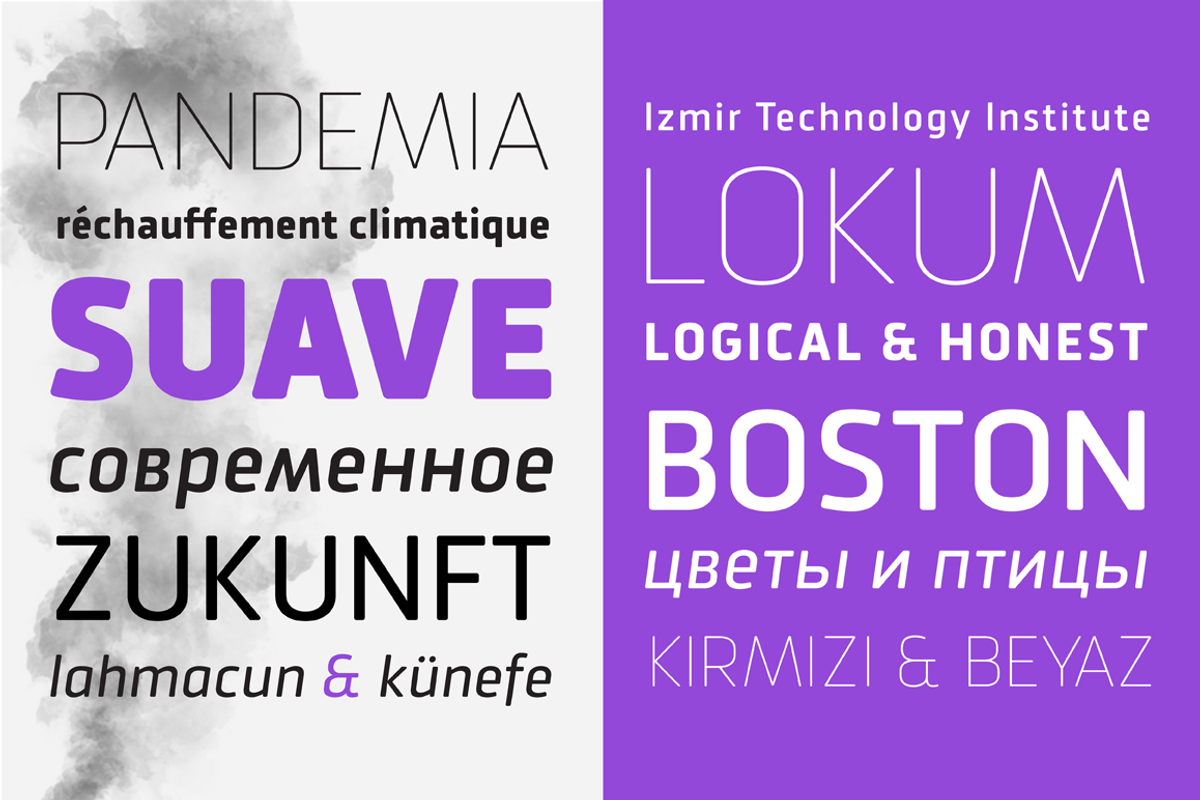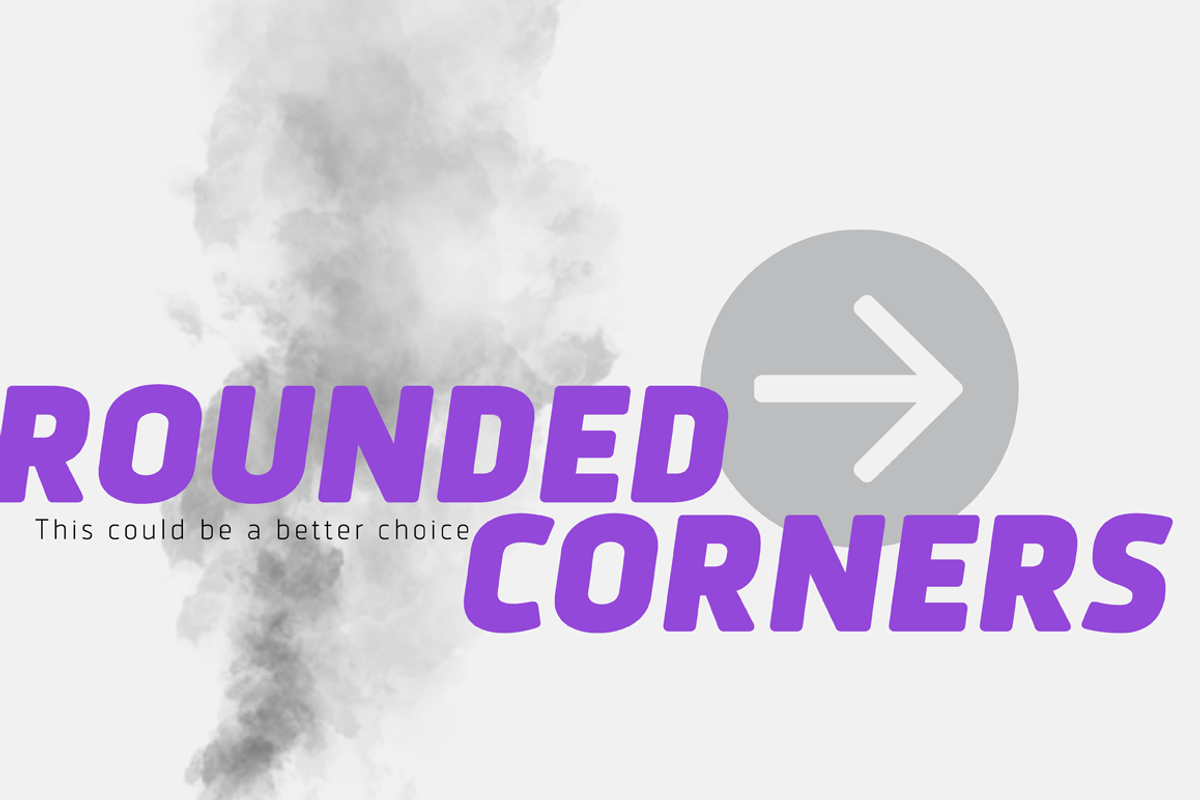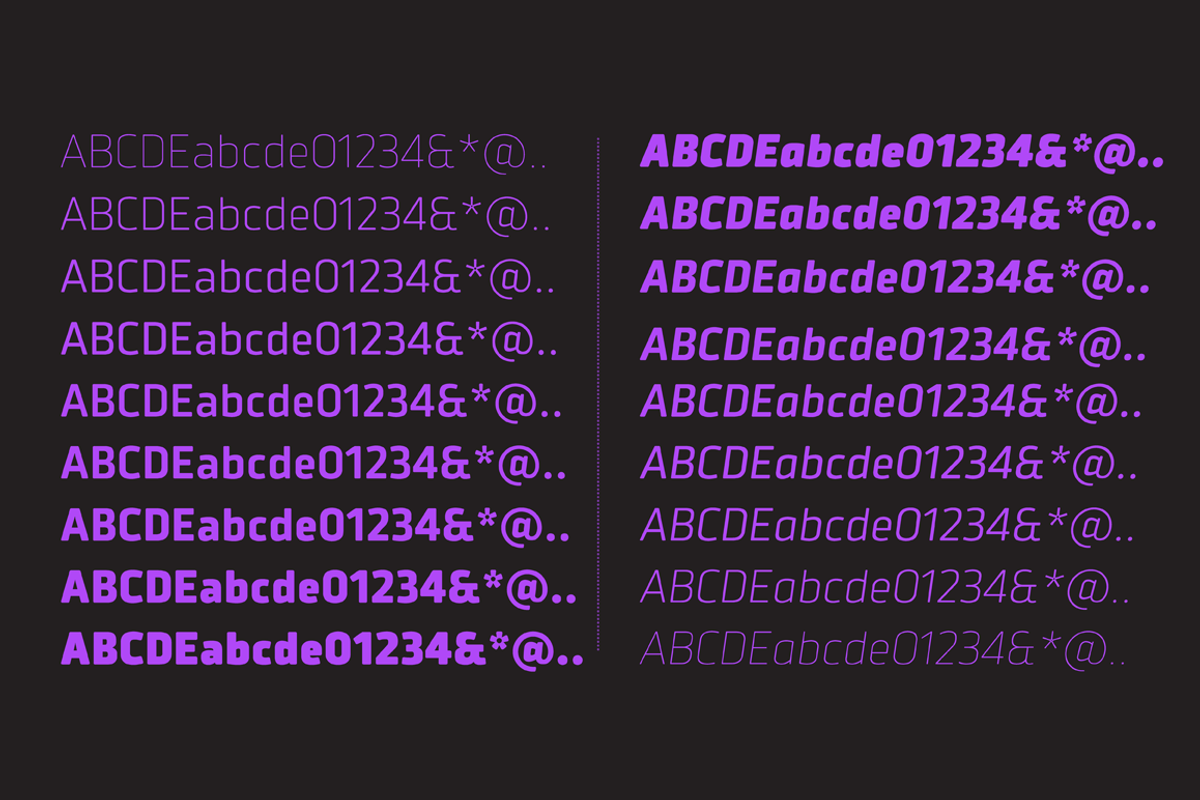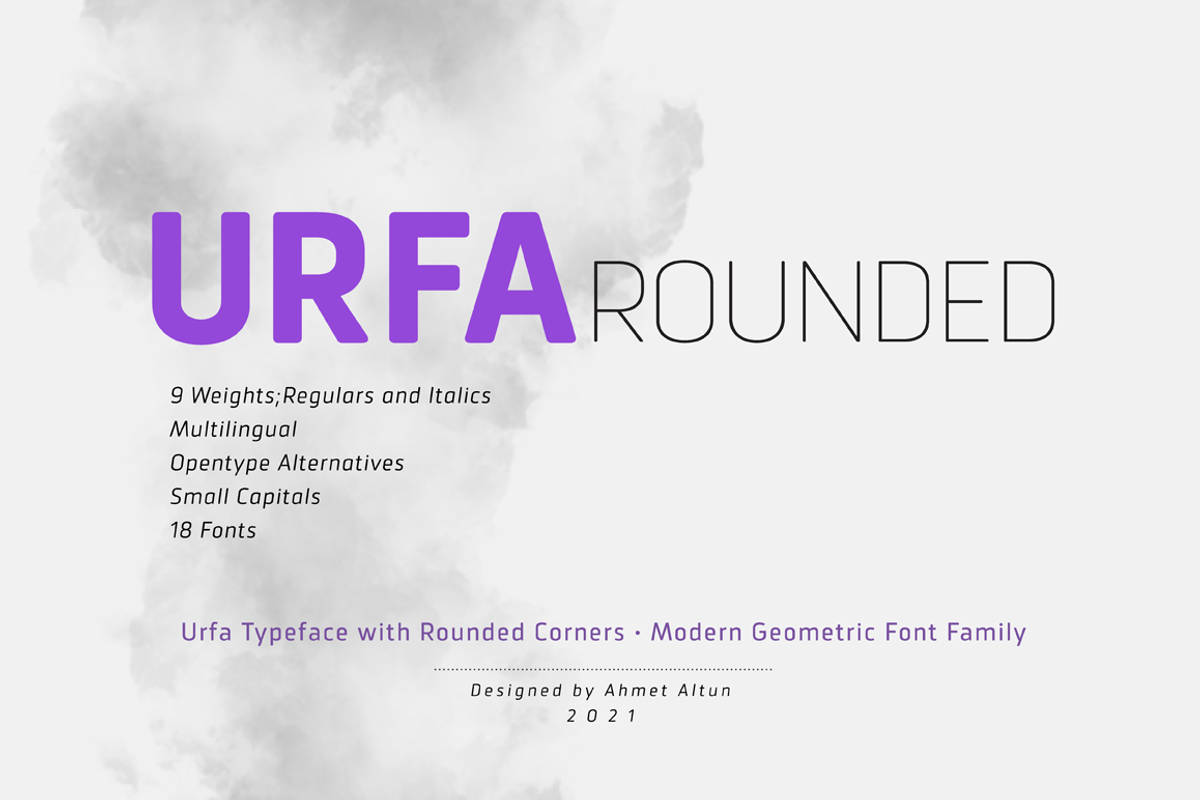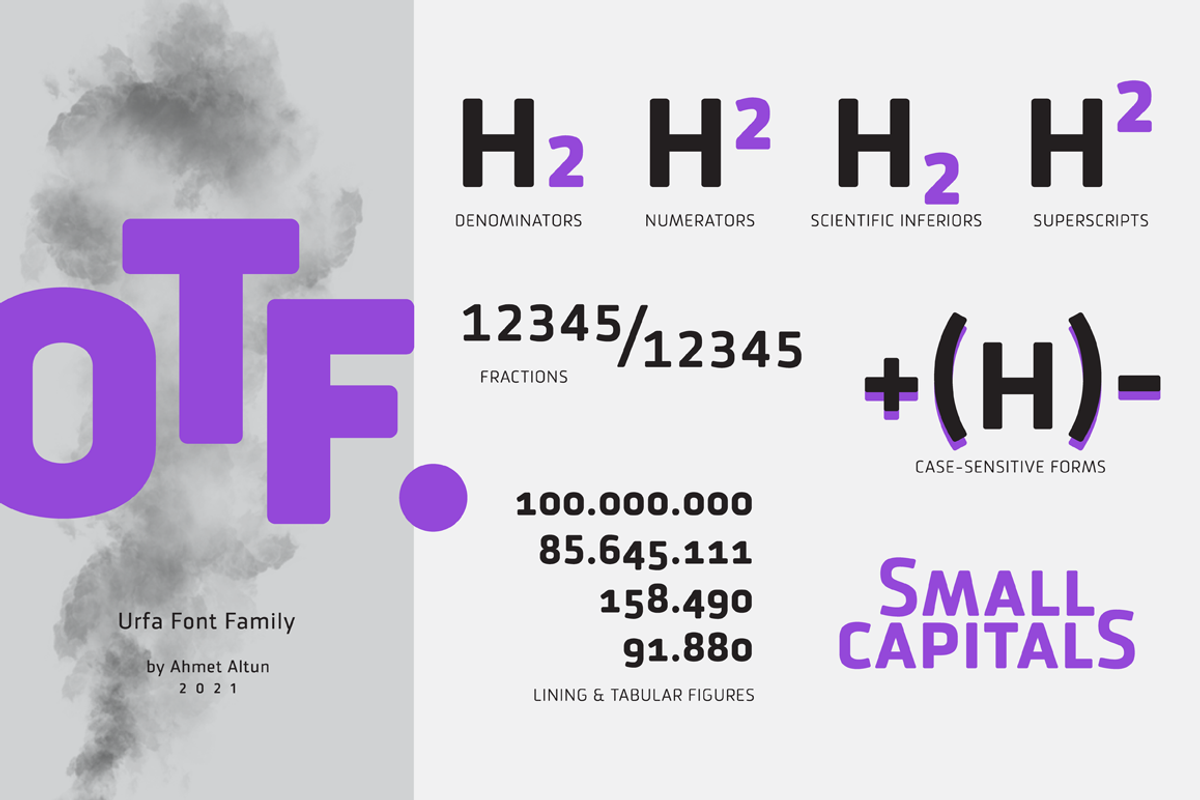
Urfa Rounded
Urfa Rounded Font family is the rounded version of Urfa font.
The Urfa Rounded font family comes in nine weights of Normal and Italic. In addition, all weights contain small caps in both italic and normal. With the Urfa Rounded font family, you can create beautiful works for the web, including logos, banners, body copy, and presentations. Urfa Rounded typeface also works nicely in print formats such as posters, T-shirts, magazines, and affiches. Because of its eye-pleasing style, this font is both effective and versatile. It supports a wide range of languages, including Extended Latin and Cyrillic.